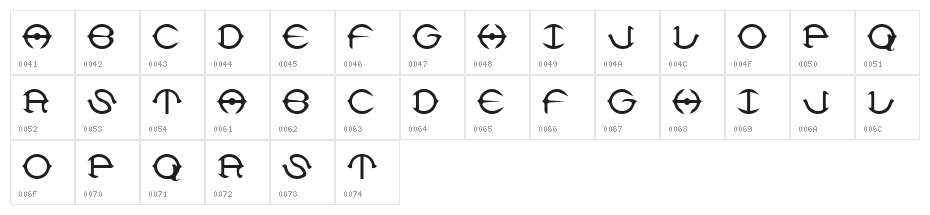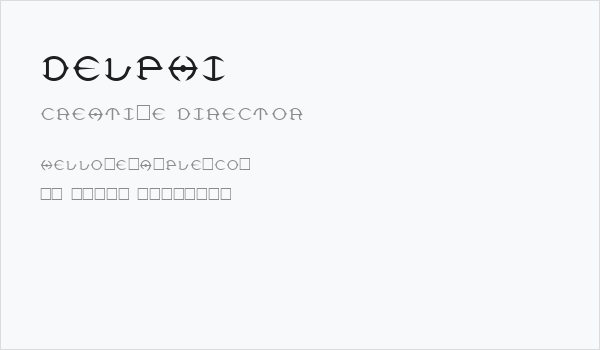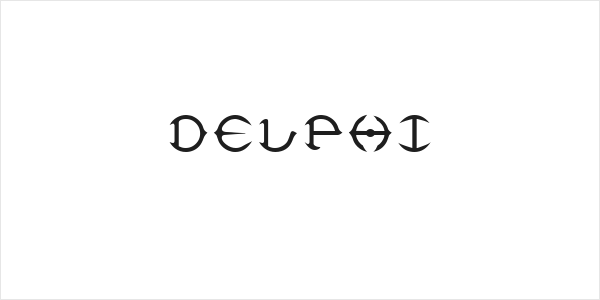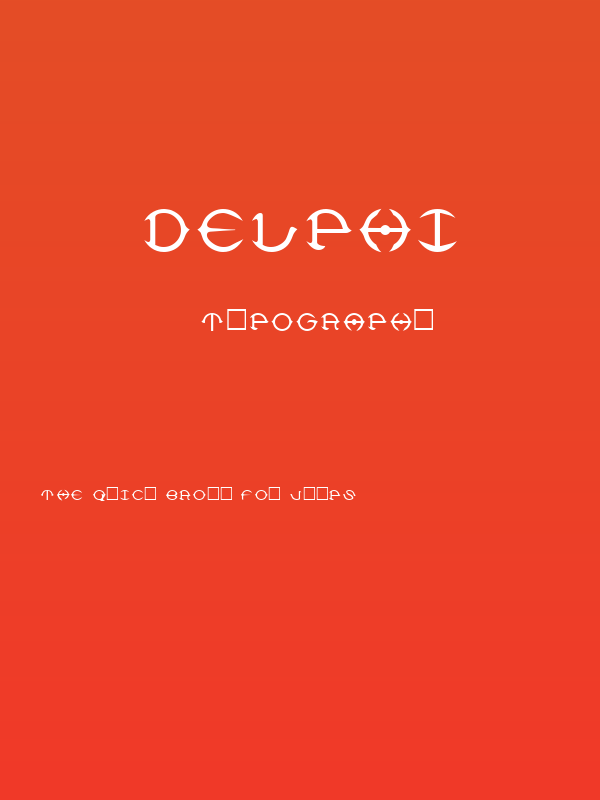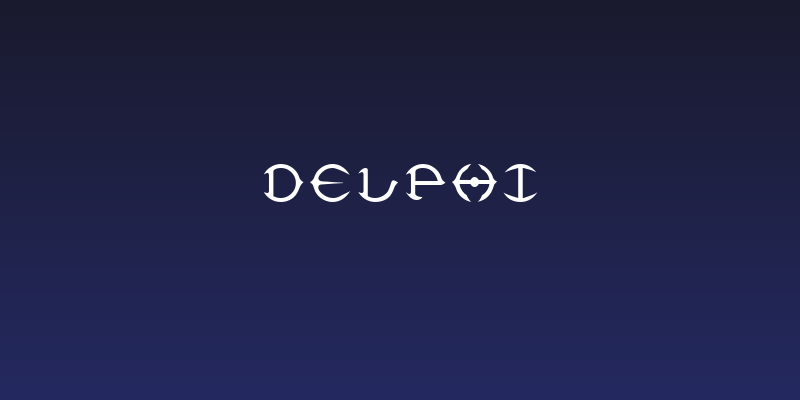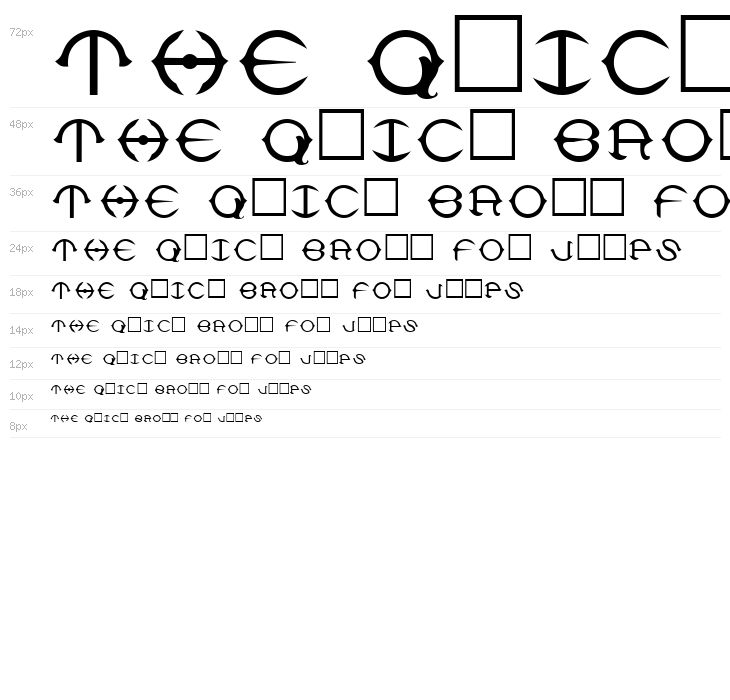
Delphi Font
Delphi Description
This font features a unique and artistic design with a blend of geometric and calligraphic elements. The uppercase letters are characterized by bold, circular shapes with distinct cutouts, creating a striking visual effect. The lowercase letters maintain a similar style, with a consistent flow and balance. The numbers and special characters follow the same design principles, ensuring uniformity across the typeface. This font's distinct style makes it ideal for creative and decorative applications, where a bold statement is desired.
| Overall Style | Modern, Artistic |
| Use Case | Logos, Headlines, Posters |
| Proposed Projects | Ideal for branding, posters, album covers, and any project requiring a bold, artistic touch. |